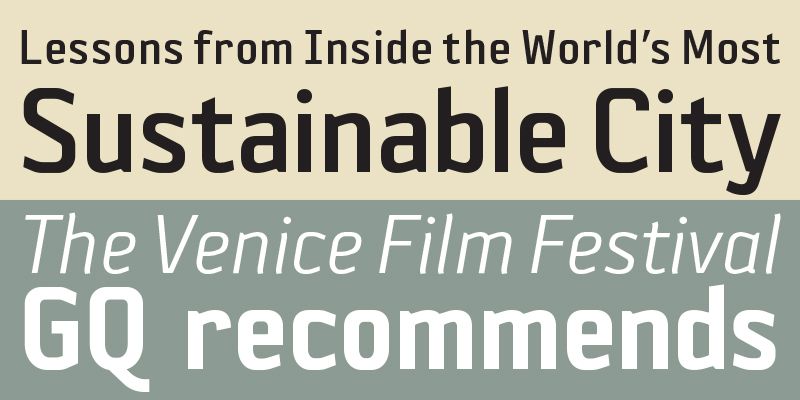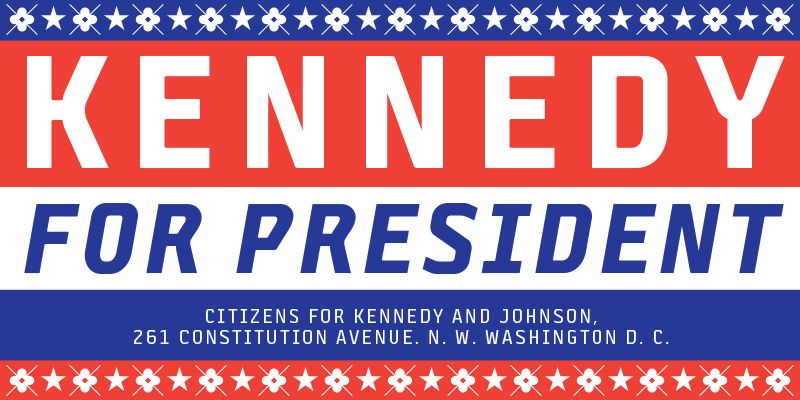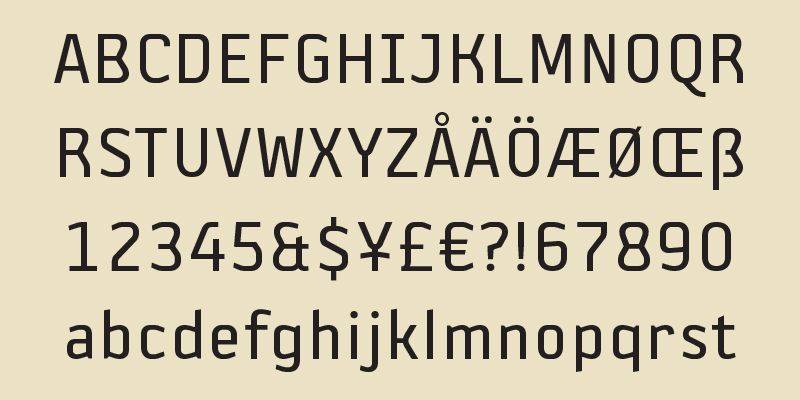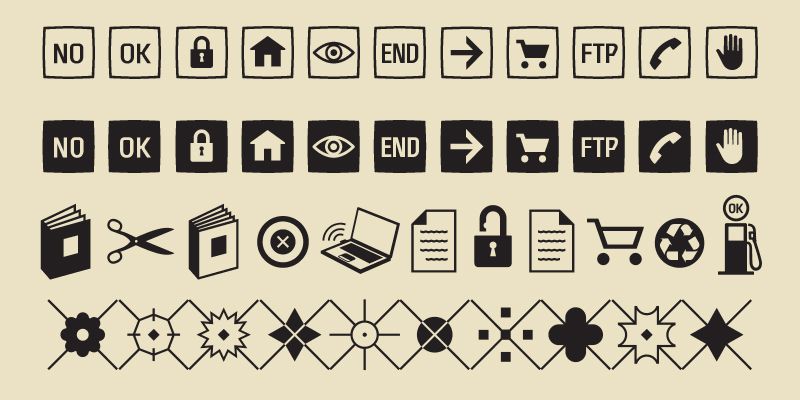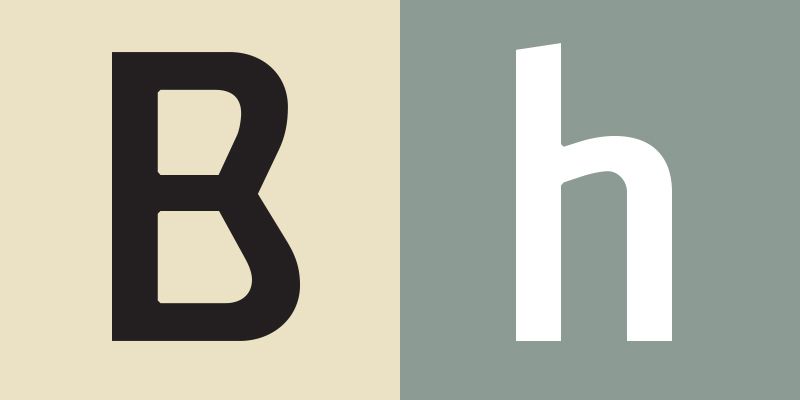
A successful collaboration between MRF and Psy/Ops Type Foundry. In search for a Sans Serif with a significant and strong character but still »low-key« enough to be functional for most areas.